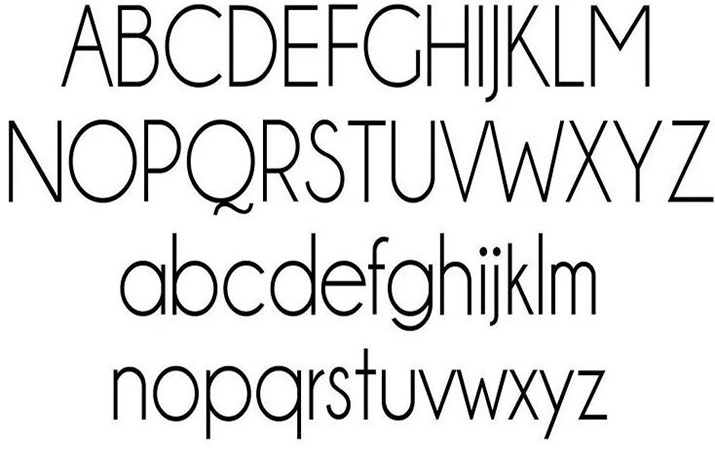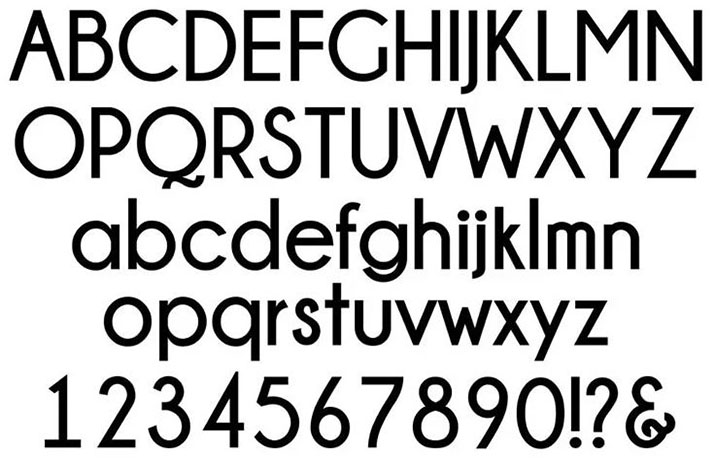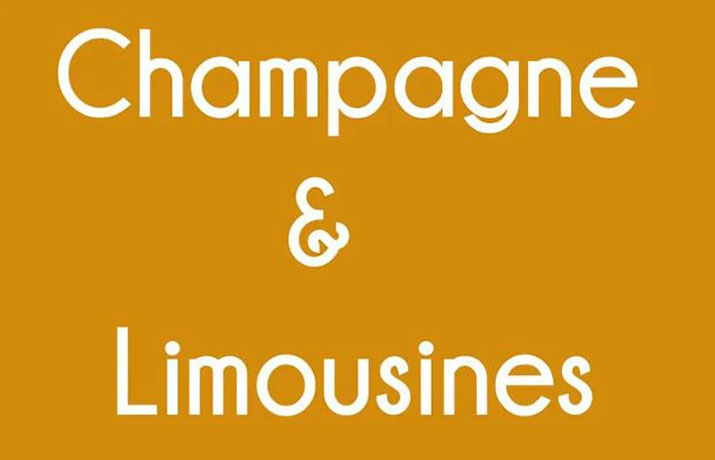
Champagne & Limousines Font is an elegant sans serif typeface that features geometric shapes and subtle quirks. It was designed and published by Lauren Thompson.
Its clean and modern style makes it a good choice for a variety of projects such as branding, web design, print materials, headers, posters, logo designs, and editorial projects.
This font has a unique personality in letters that it has sharp lines, rounded corners, and subtle geometric details. This makes it unique and attractive compared to other sans-serif fonts.
“This font family comes in four basic styles including Regular, Regular Italic, Bold, & Bold Italic. This font includes 847 glyphs and 1126 binary stored kerning pairs. Moreover, It also supports 103 global languages.”